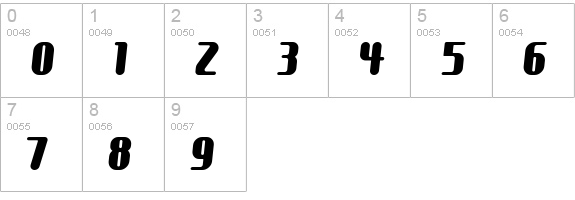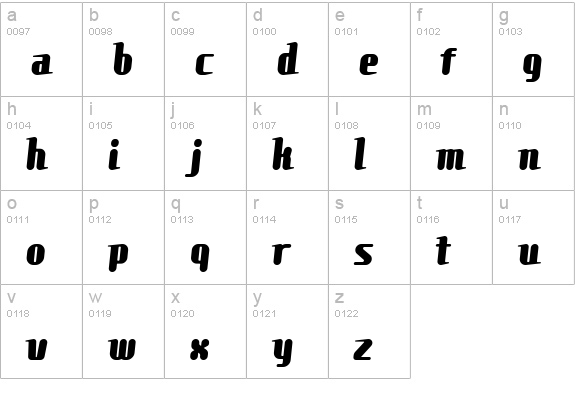
Comons Exï¿¿raBold font is a striking and bold typeface that exudes confidence and modernity. With its strong and impactful appearance, this font is perfect for making a bold statement in any design project. Designed with attention to detail and a unique style, Comons Exï¿¿raBold font is sure to capture attention and leave a lasting impression. The best part is that Comons Exï¿¿raBold font is available for free download at FontsMarket.com. Whether you're working on a branding project, poster design, or any other creative endeavor, this font will elevate your work to the next level with its bold and distinctive character. Download Comons Exï¿¿raBold font today and unleash the power of bold typography in your designs.